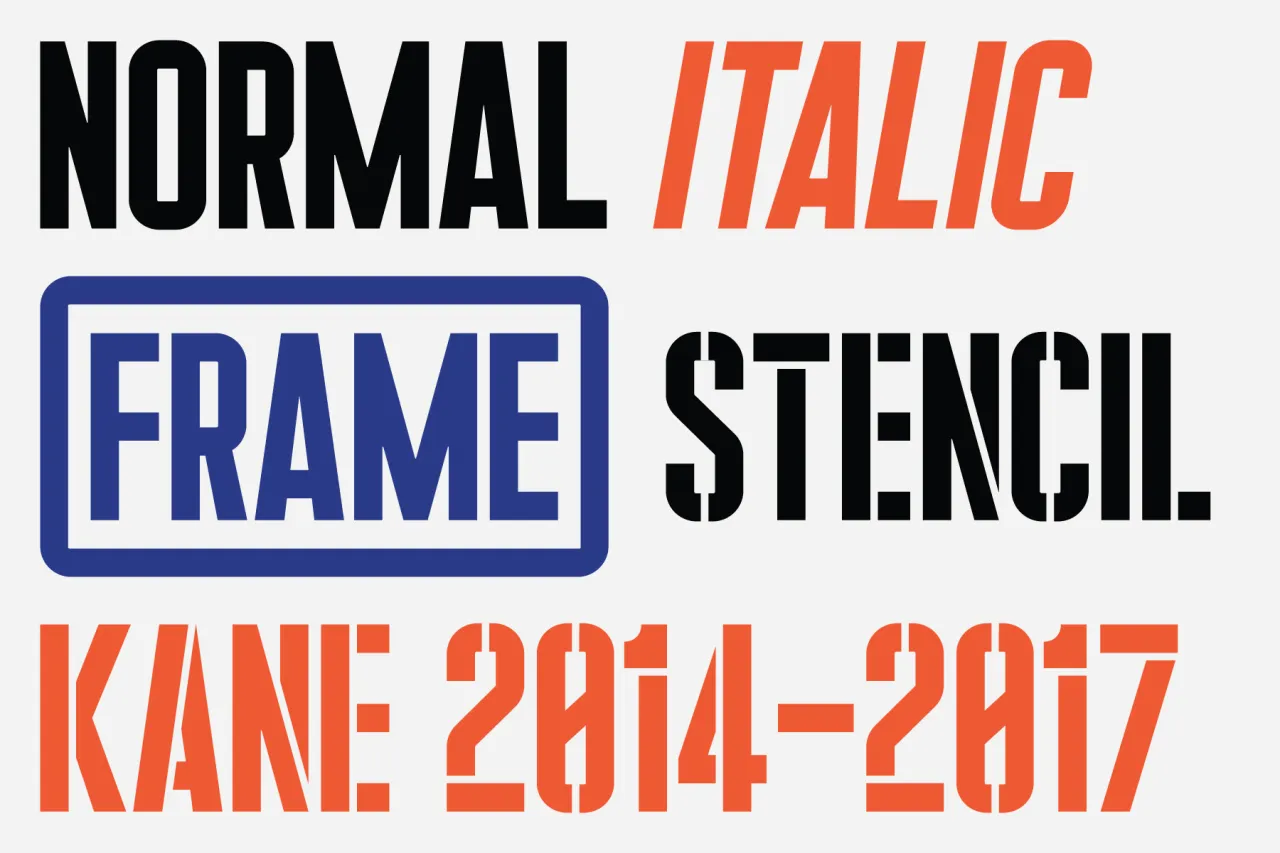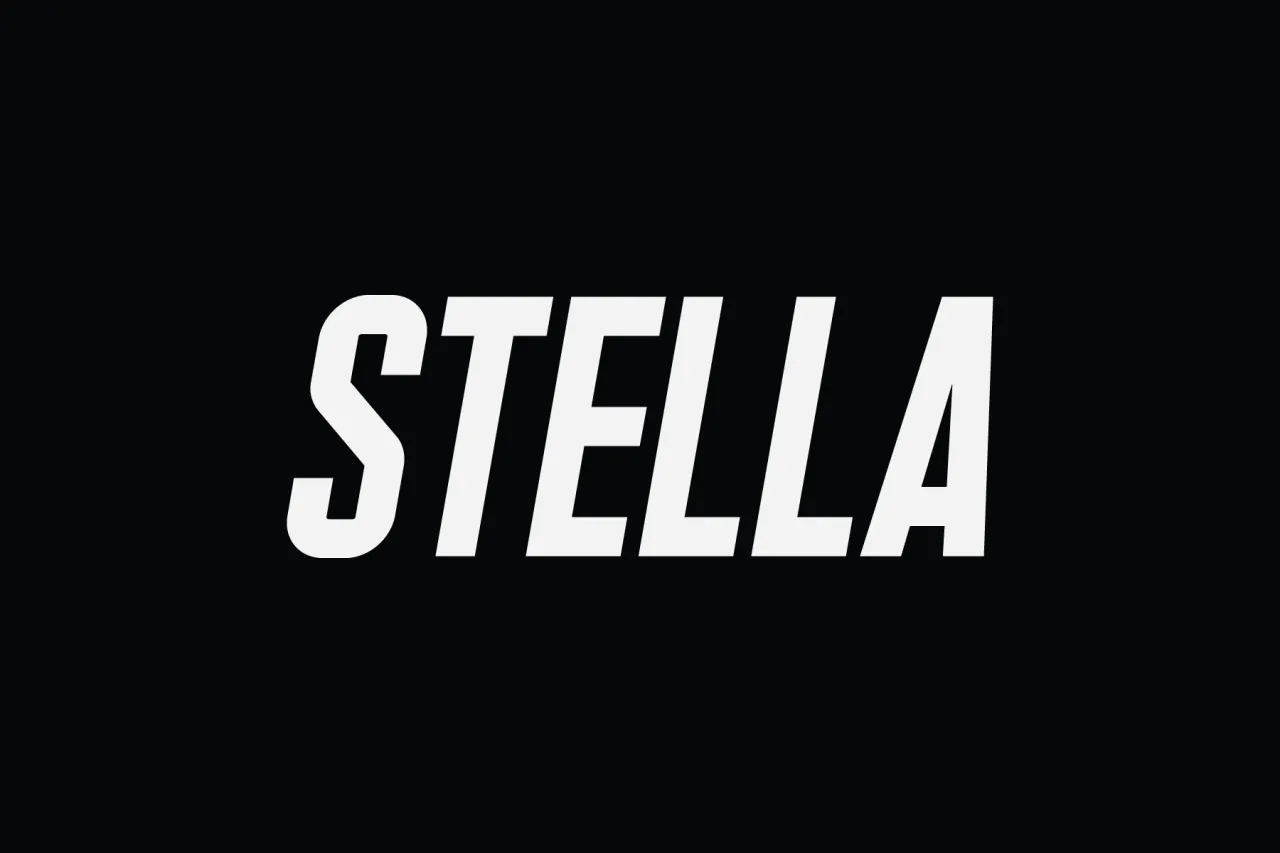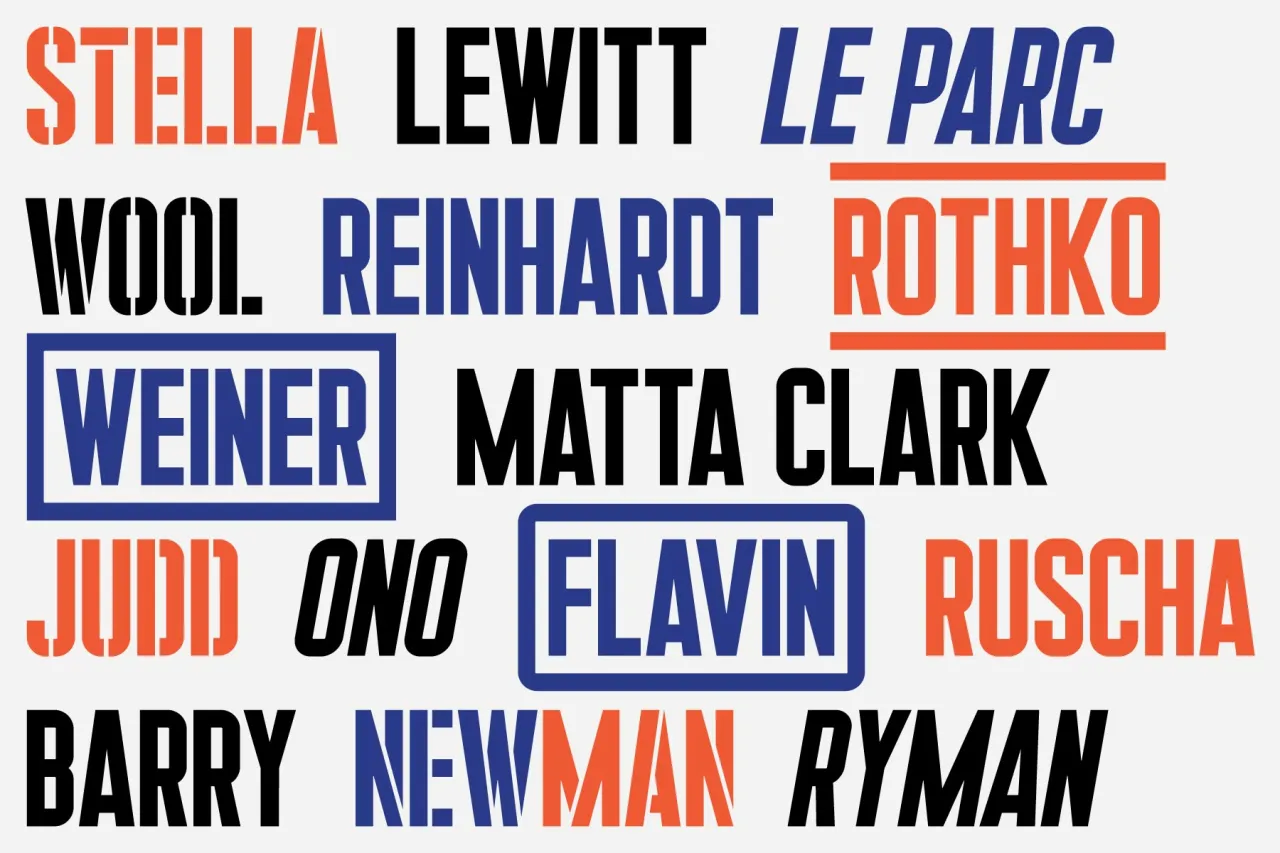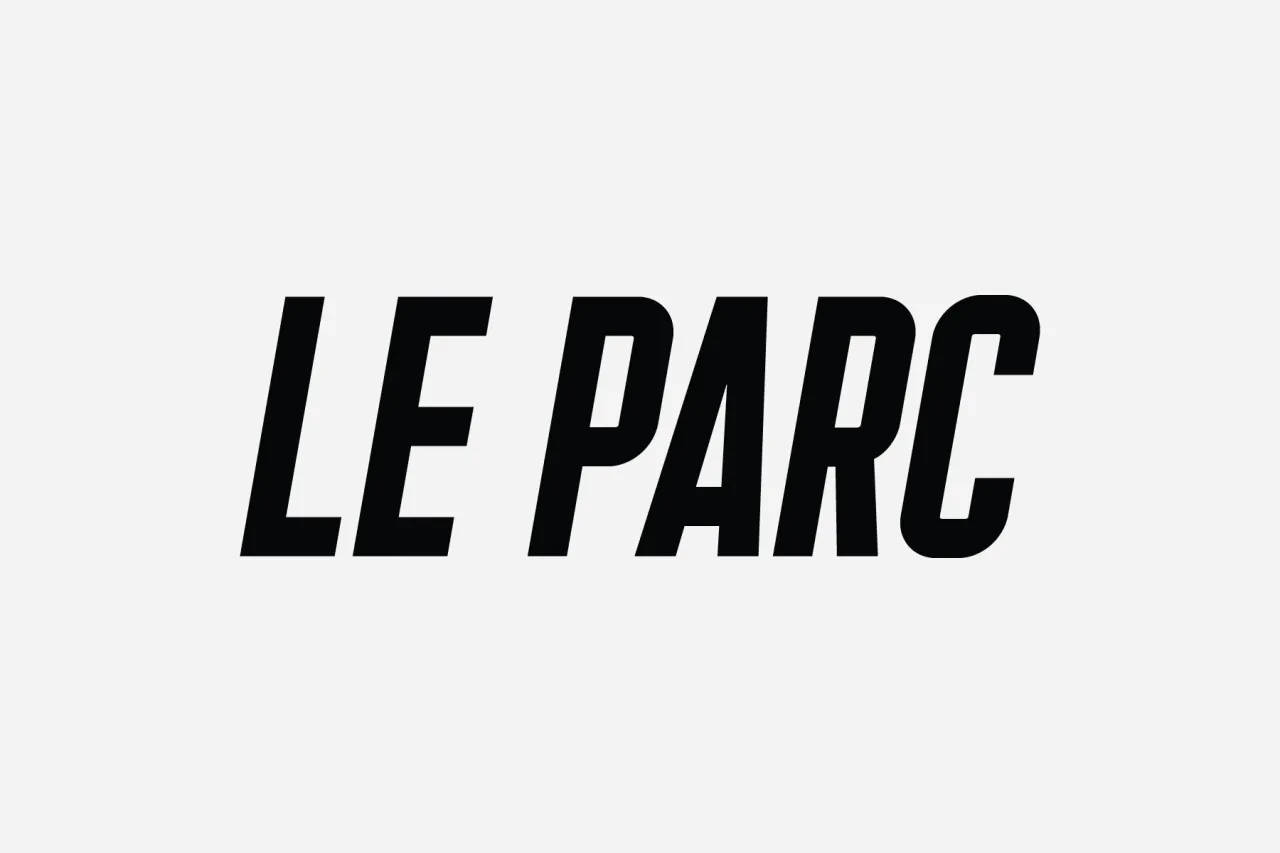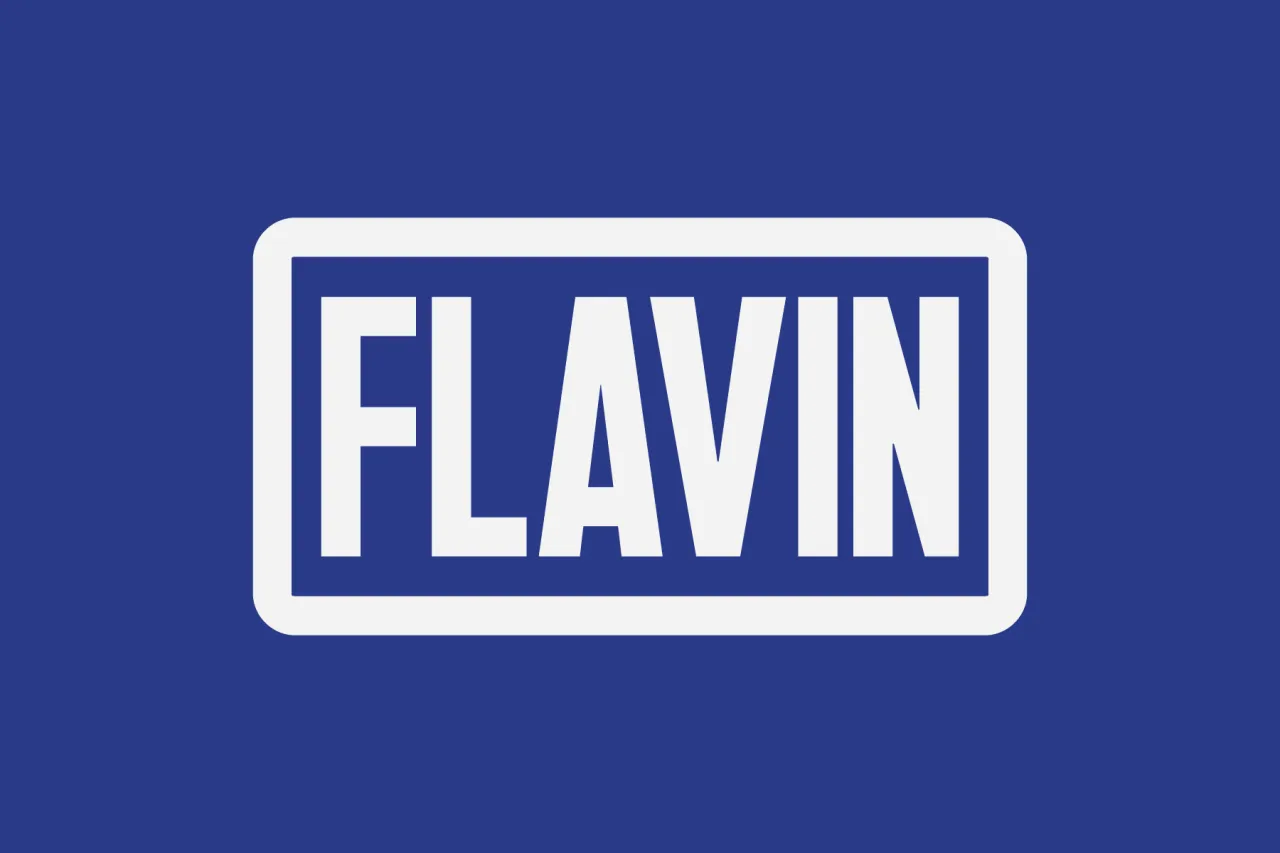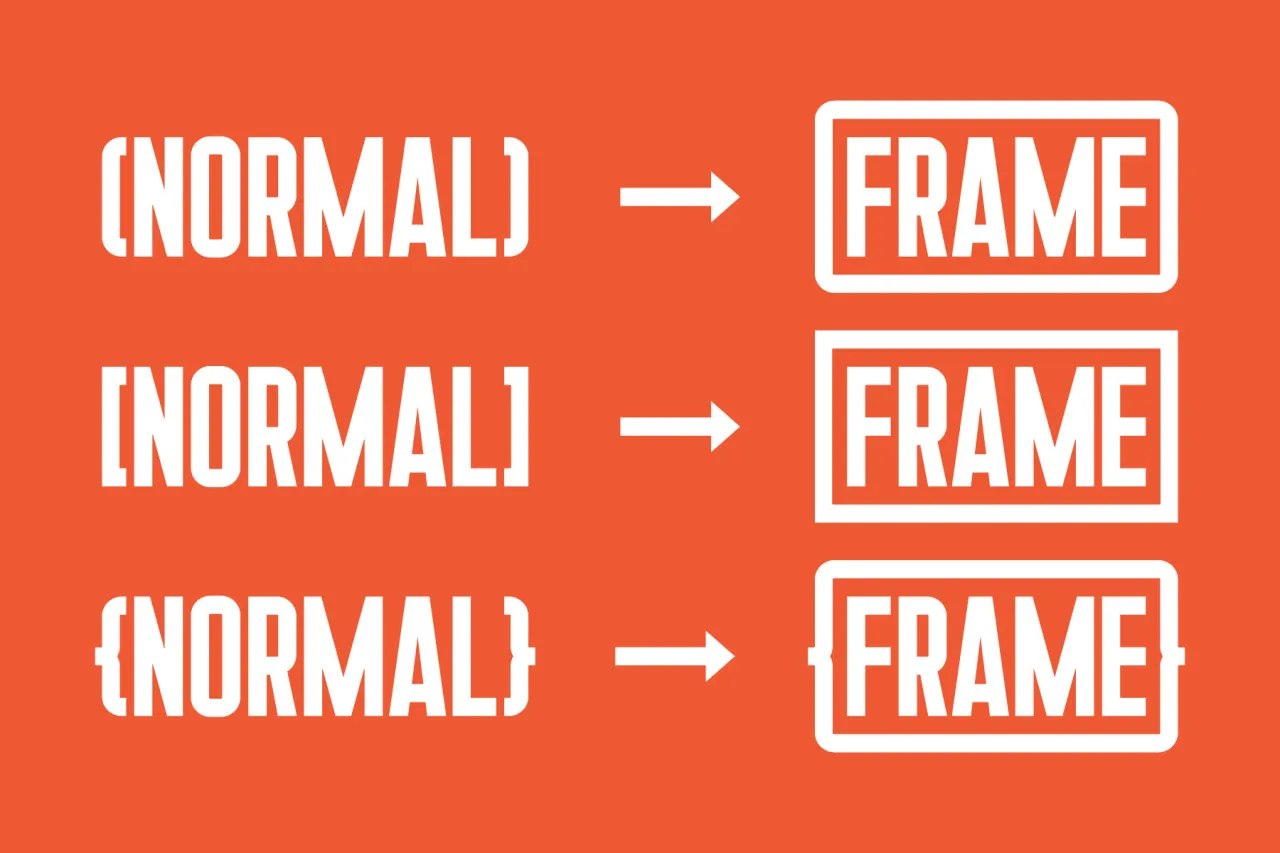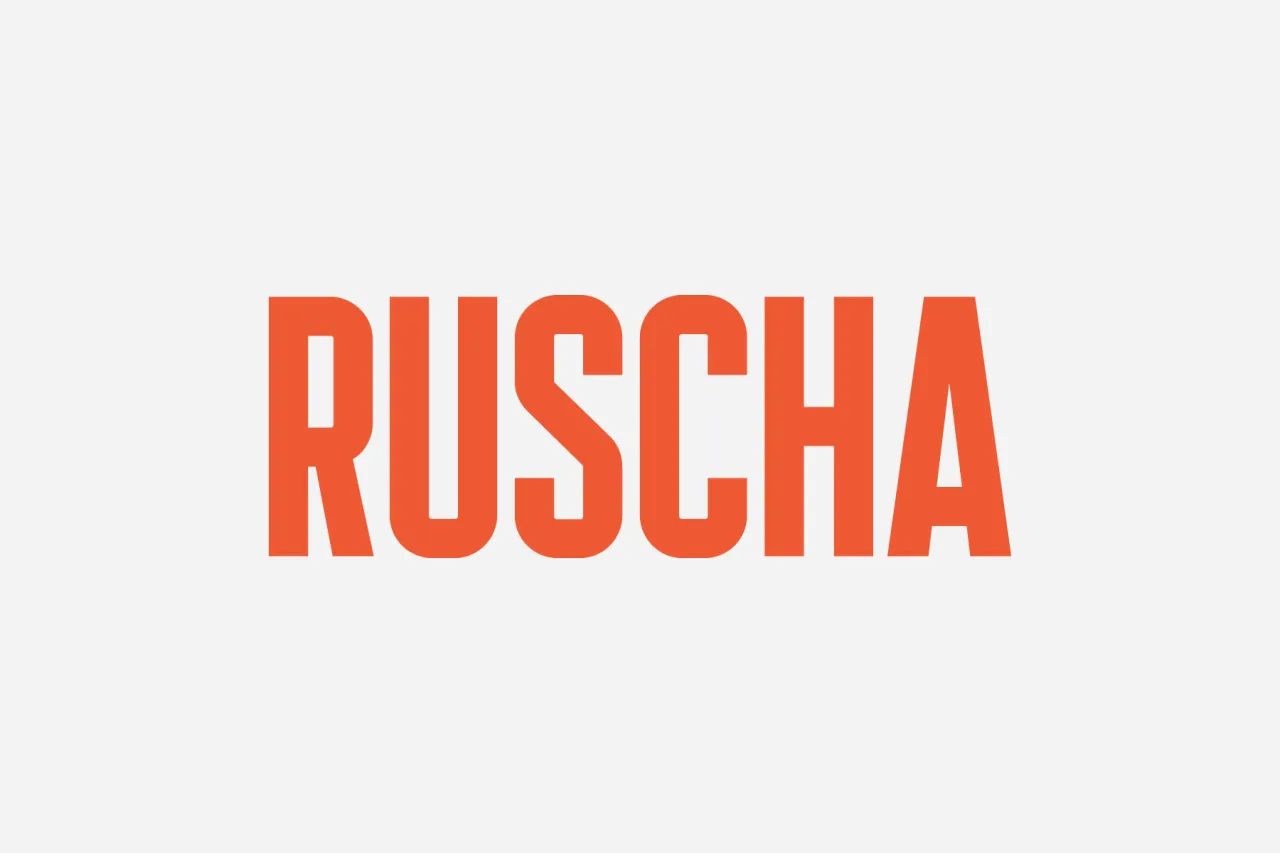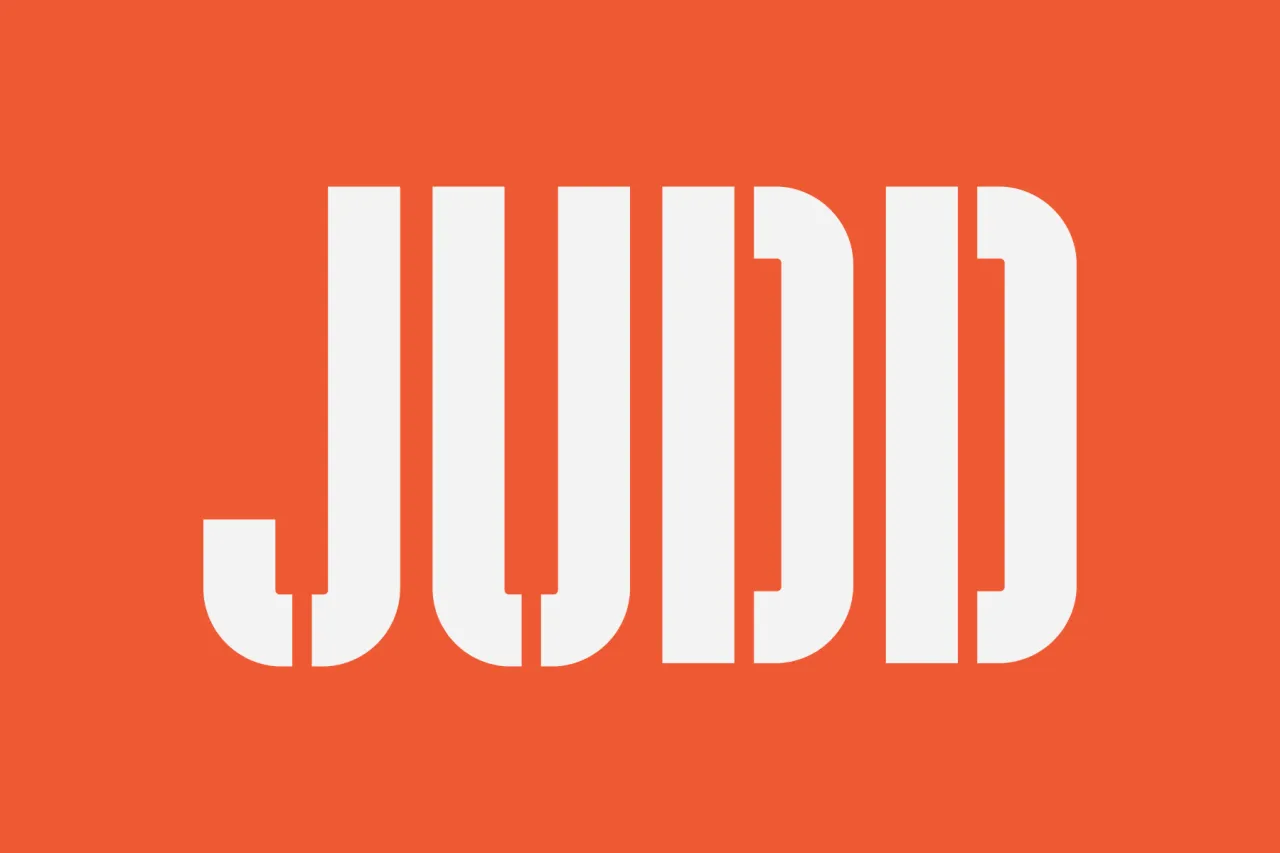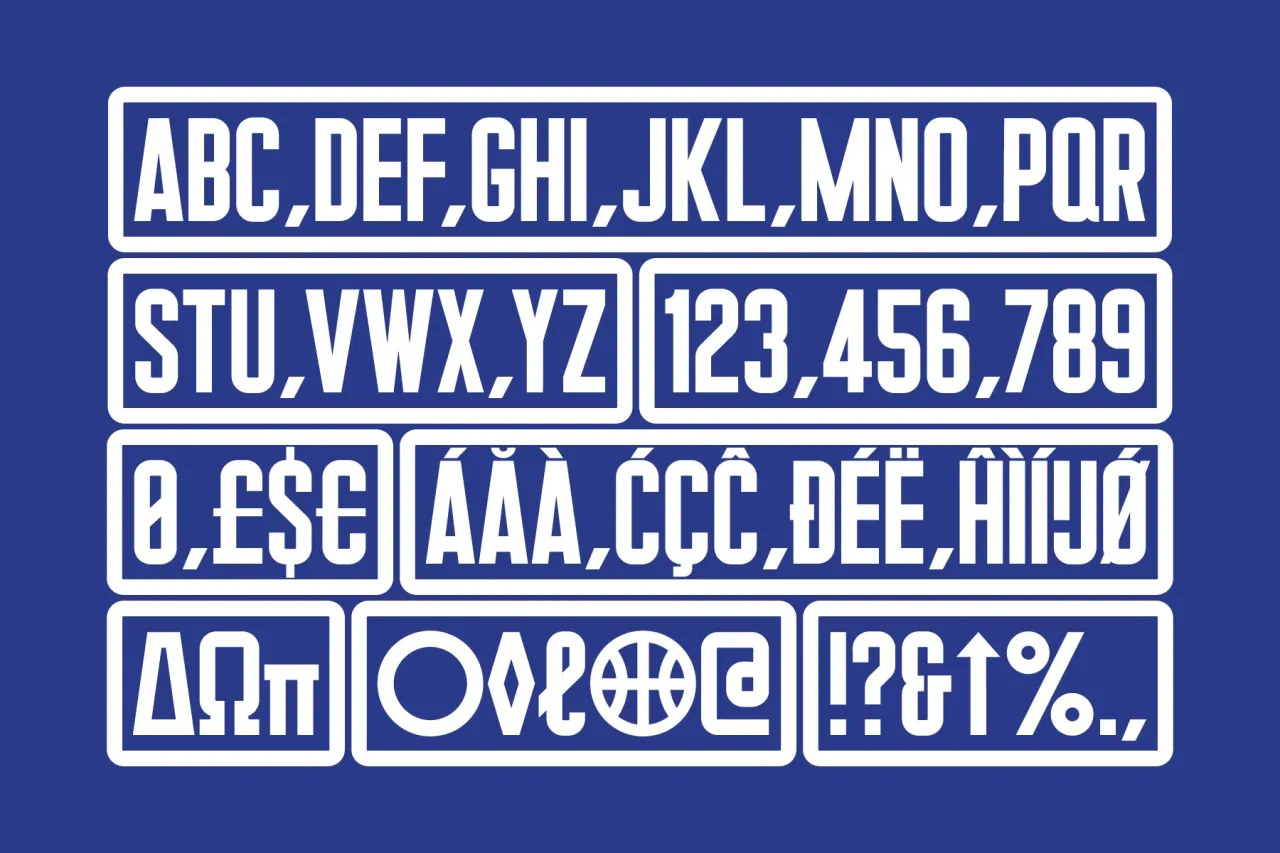
A versatile typeface inspired by Orson Welles' Citizen Kane
Combining a love of classic cinema and contemporary art, Kane Display is a lovely little typeface created by design studio Think Work Observe.
Based in Udine, Italy, Think Work Observe initially created the typeface in 2014 as a lettering system inspired by the woodblock type posters for Citizen Kane, Orson Welles’ 1941 film often hailed as one of the greatest works of cinema of all time.
This year, the studio added some new styles to the typeface family inspired by the work of conceptual artists like Christopher Wool and Lawrence Weiner. Kane Display is now available in four styles – Normal, Italic, Frame, and Stencil – and it supports Standard Western and Latin Extended characters. It’s a modern and bold set of letters, and would certainly look great in film titles or in cultural client logos.
Think Work Observe was founded in December 2011 by Piero di Biase and Alberto Moreu, and works across commissioned projects in the commercial, cultural and editorial sector, with a strong focus on original typography.